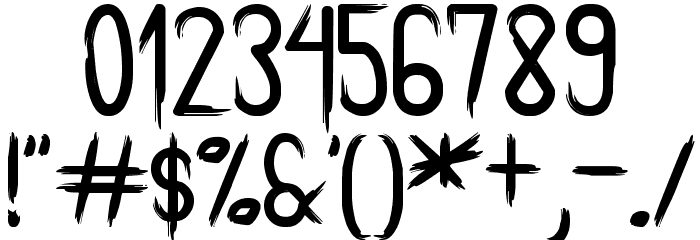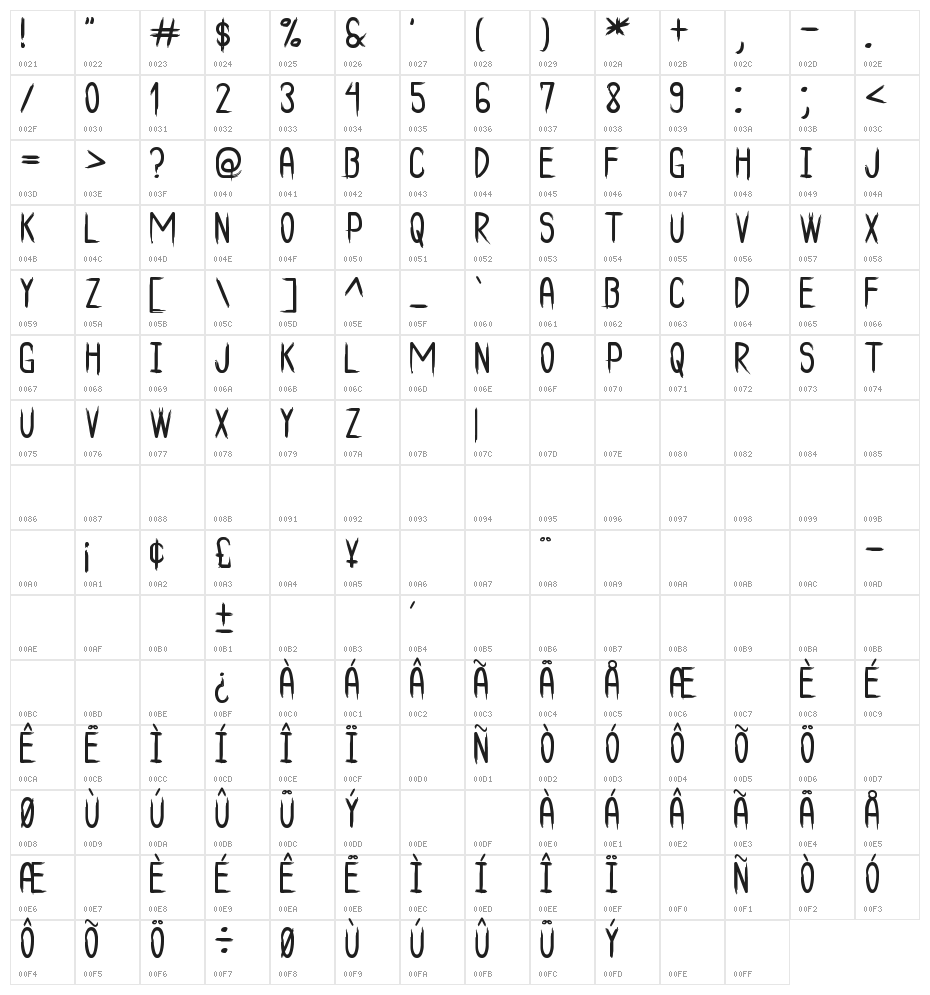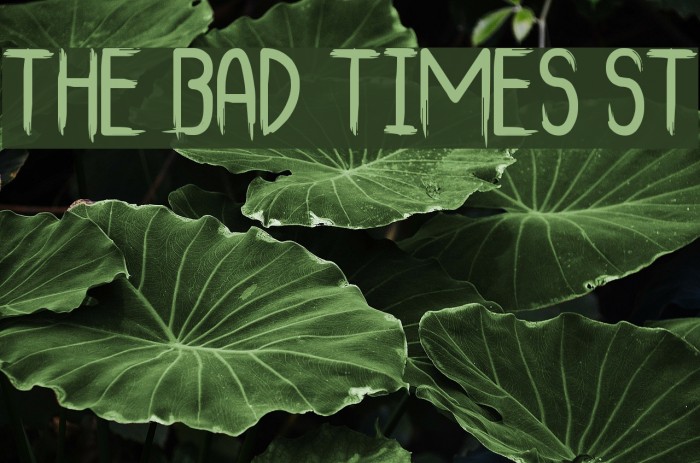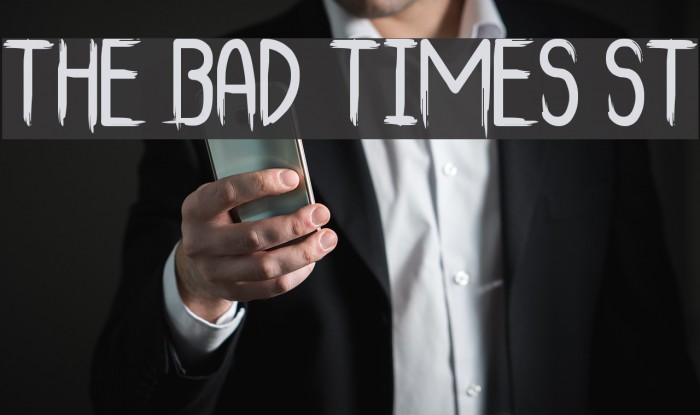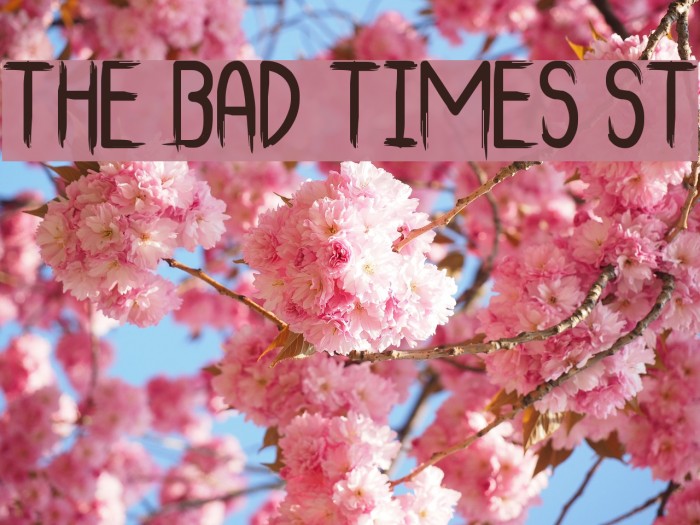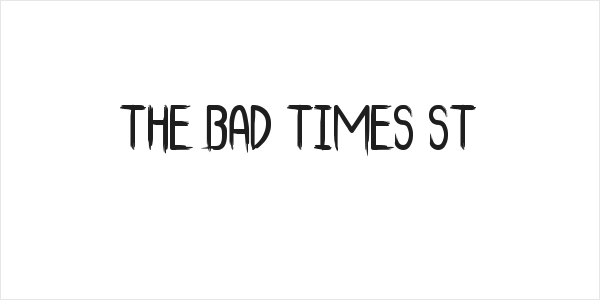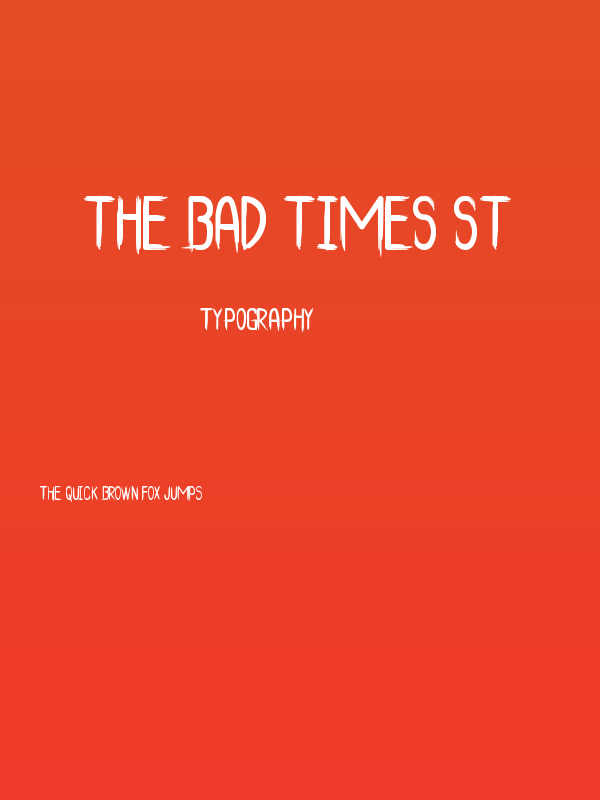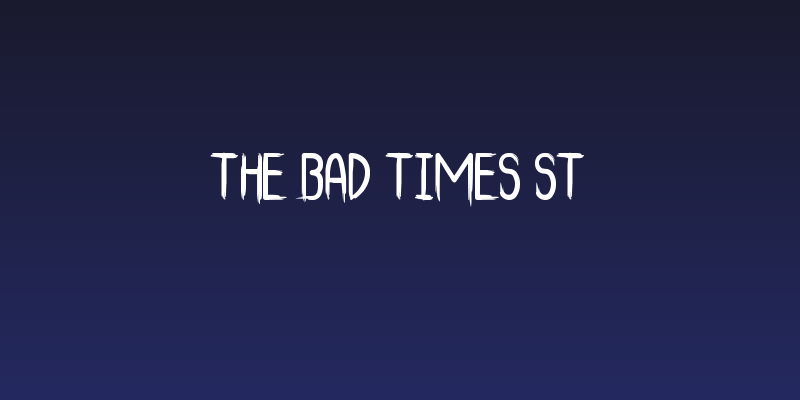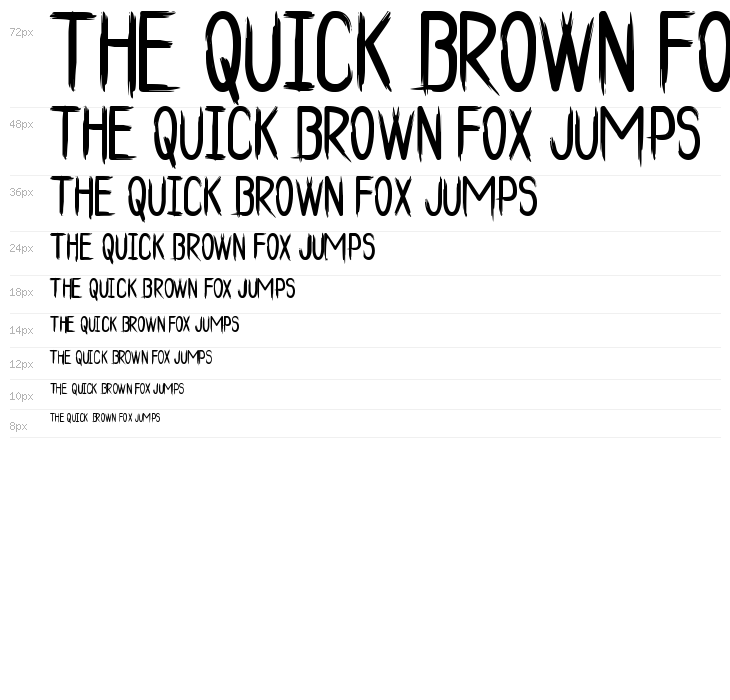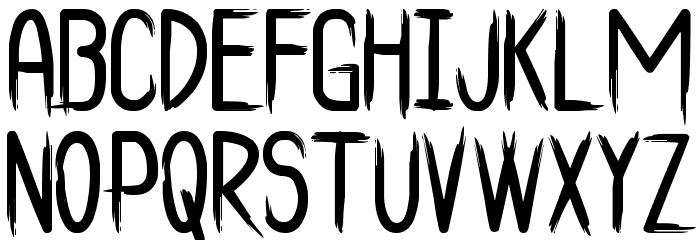
The Bad Times St Font
The Bad Times St Description
This font features a bold and edgy design with a distressed, grunge-like appearance. The characters have sharp, jagged edges and uneven strokes, giving them a raw and dynamic feel. The uppercase and lowercase letters maintain a consistent style, with a slightly condensed width that enhances the dramatic effect. Numbers and special characters follow the same aesthetic, making the font suitable for projects that require a bold statement. The overall style is modern and decorative, perfect for capturing attention.
| Proposed Projects | Ideal for horror-themed posters, edgy branding, album covers, and eye-catching headlines. |